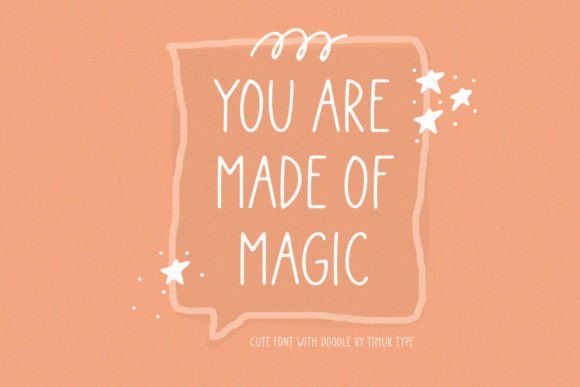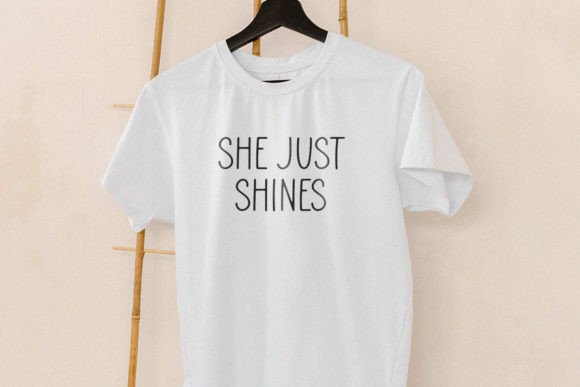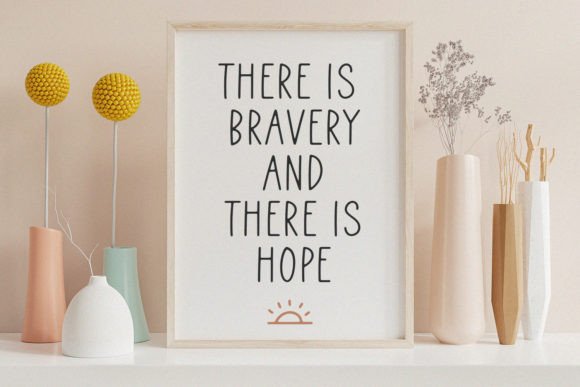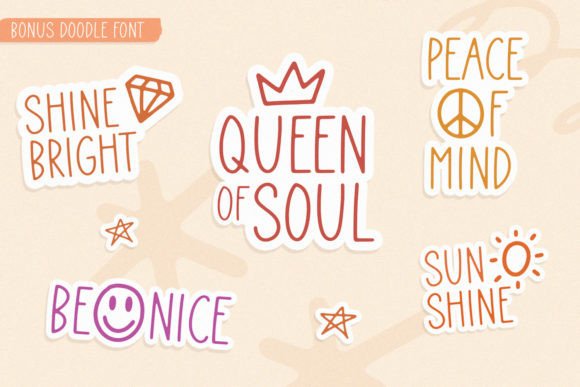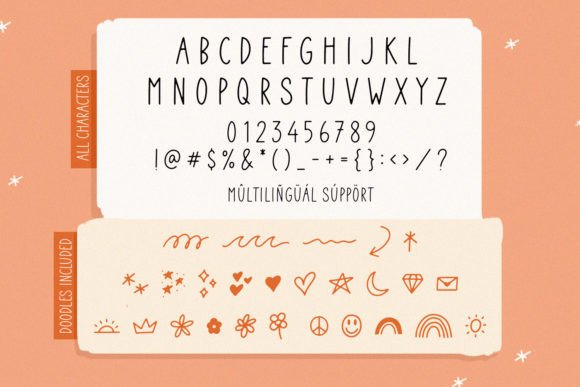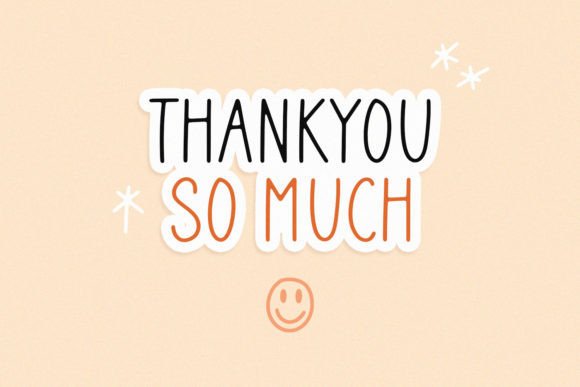
Roseglow Font
About Roseglow Font
If you’re searching for a cheerful and inviting typeface, the Roseglow Font download is the perfect match. This fun and cute handwritten font brings warmth and creativity to every project. Its charming style makes it ideal for crafting, digital art, and all your personal design needs.
Whether you’re working on custom greeting cards, colorful social media graphics, or digital invitations, Roseglow offers the friendly tone that enhances your message. It’s a go-to option for both beginners and experienced designers looking to add personality to their work.
Handwritten With Heart
What makes the Roseglow Font download special is its blend of casual flair and clean structure. The rounded edges and playful strokes give the impression of natural handwriting, making every piece feel personal and authentic. Despite its cute look, it maintains high readability, even in smaller text sizes.
Use Roseglow Font for:
• Handcrafted labels and packaging
• Children’s books or school projects
• Social media posts and stickers
• DIY invitations and event flyers
• Holiday cards or photo captions
• Craft blogs or journaling layouts
Its versatility ensures it fits any theme—whether you’re aiming for sweet, whimsical, or creative fun.
The Roseglow Font download includes a complete set of upper and lowercase letters, numbers, and punctuation. It’s compatible with most major design platforms and installs easily on Windows and macOS. The consistent letter spacing and balanced forms make it ideal for both print and digital formats.
Key features:
• A cute handwritten script style
• Smooth, rounded characters
• Great readability across sizes
• Suitable for Cricut/Silhouette designs
• Works well with pastel or colorful themes
Whether used alone or combined with other playful typefaces, Roseglow holds its own and helps your work shine.
Add Joy to Your Design Projects
The Roseglow Font download helps you express joy, friendliness, and charm. Its approachable personality brings a sense of fun to everything it touches. Perfect for designers, hobbyists, or anyone looking to make their designs feel more human and heartfelt.
You’ll find that Roseglow fits in naturally with seasonal designs, personalized gifts, thank-you notes, and even brand visuals for handmade shops or cozy product lines.